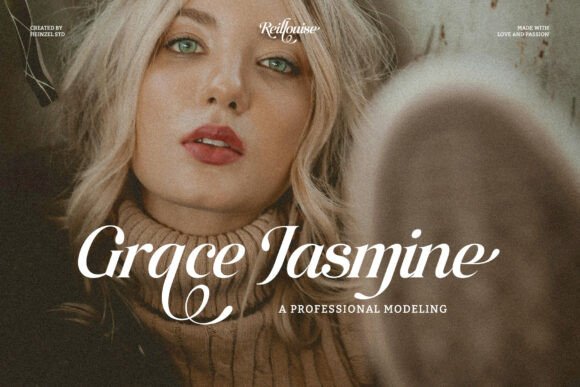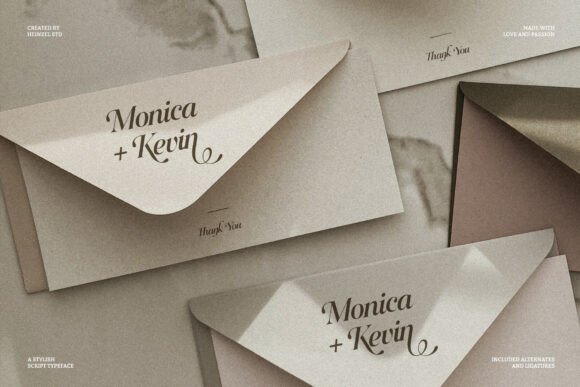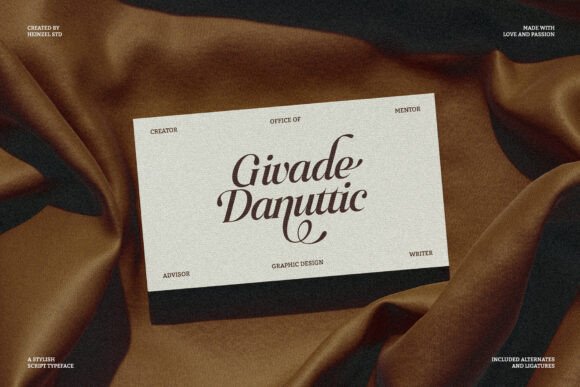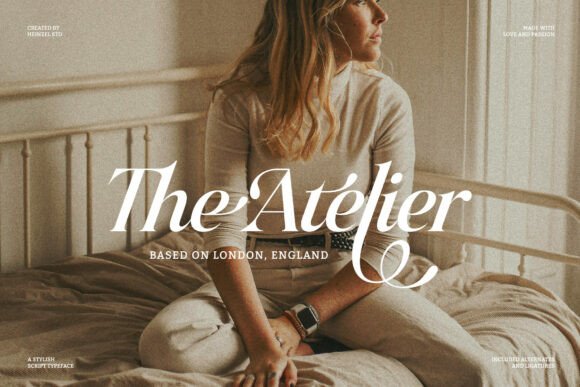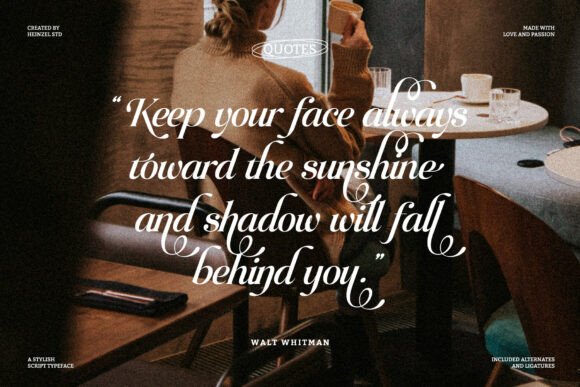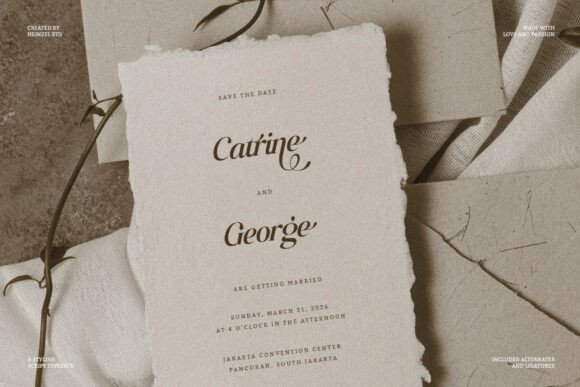
Introduction to Raillouise Font
Raillouise is a stylish script typeface that blends modern elegance with timeless calligraphy.
Designed with smooth curves, flowing strokes, and refined ligatures, this font delivers a luxurious and feminine feel perfect for branding, wedding invitations, logos, packaging, and social media designs Its natural handwritten style creates an authentic and sophisticated look, while the carefully crafted alternates and swashes add versatility and charm to every project.
Key Features of Raillouise Font
Why Choose Raillouise Font?